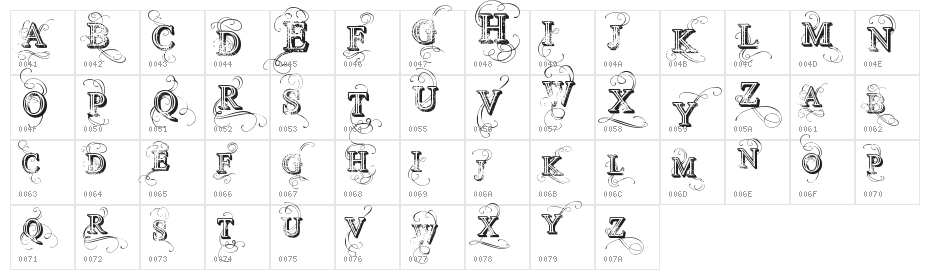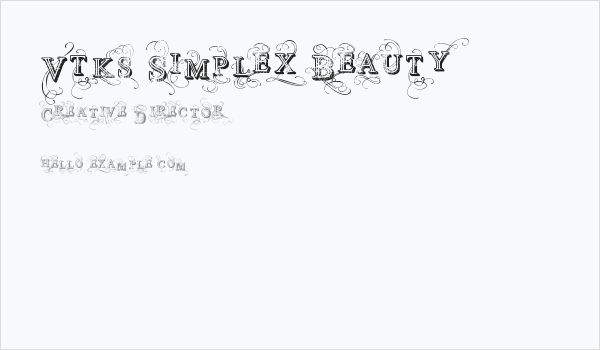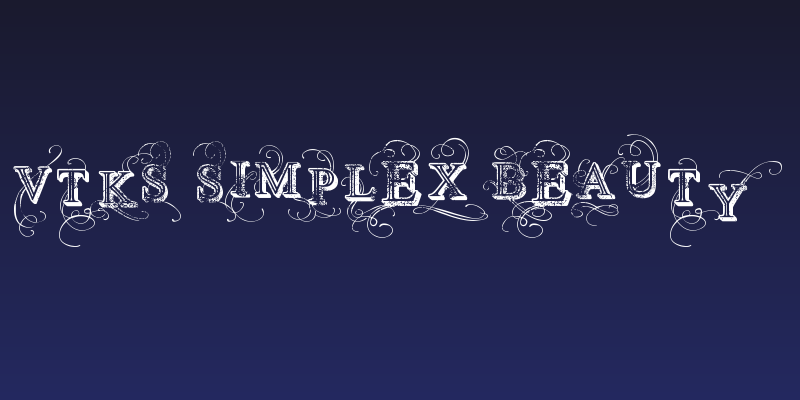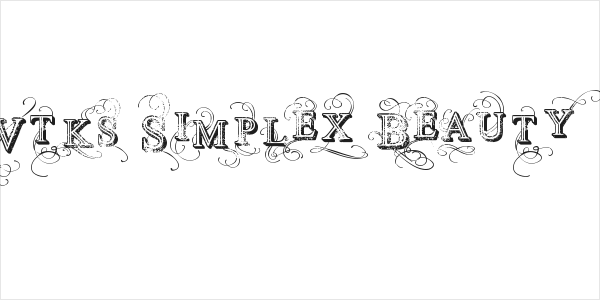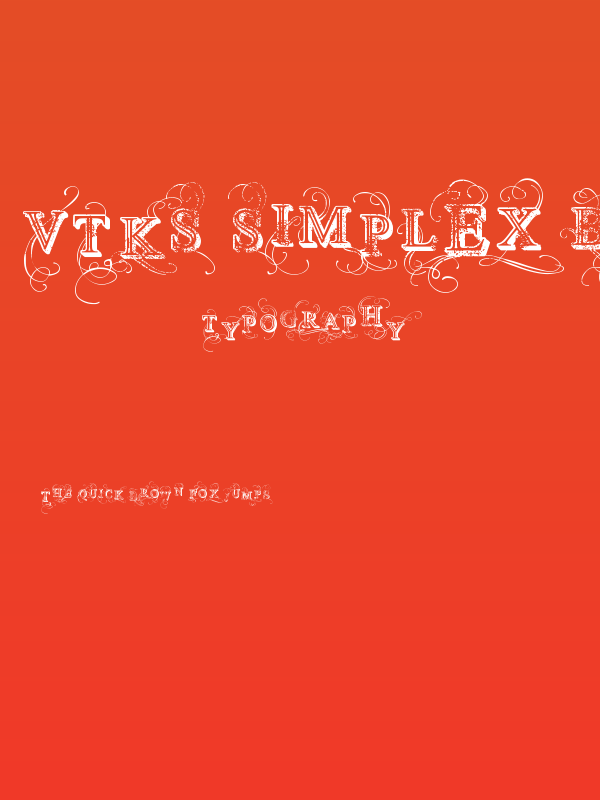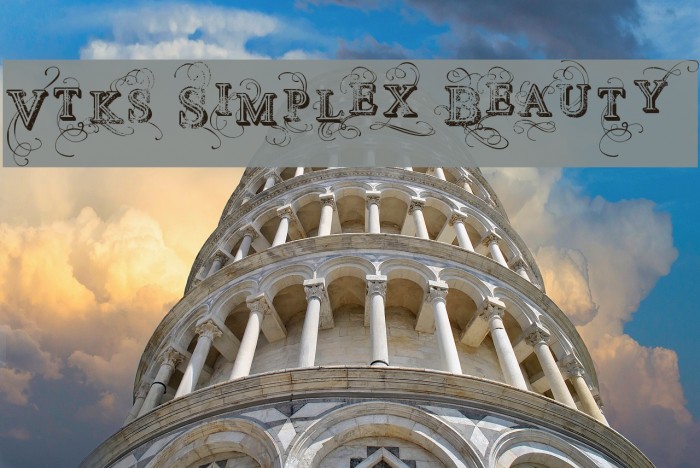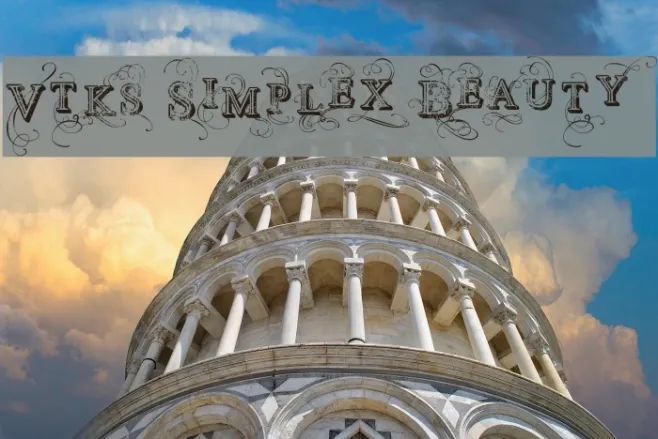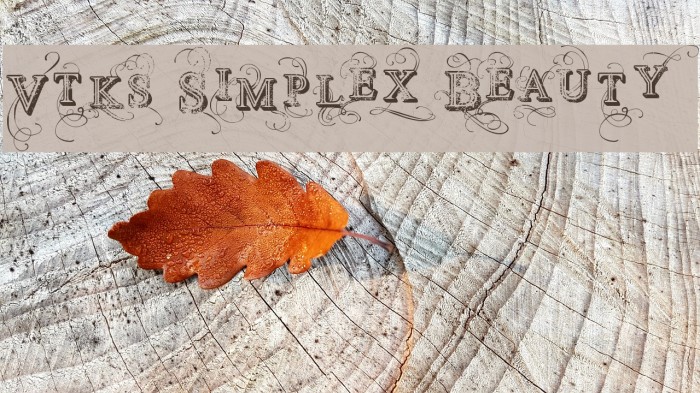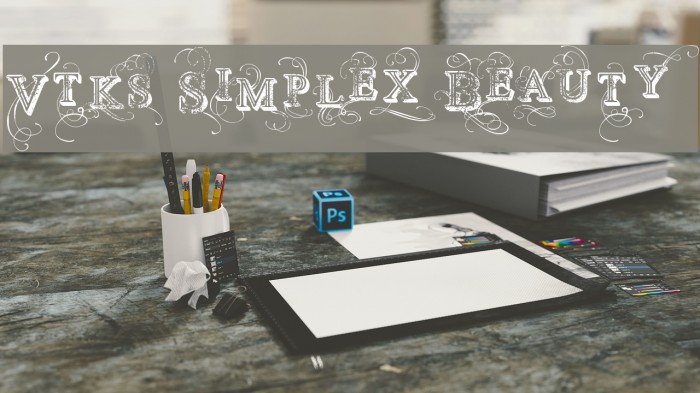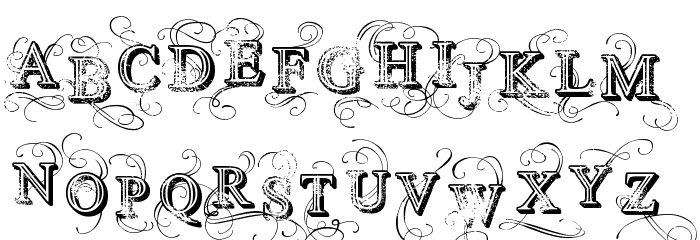
Vtks Simplex Beauty 2 Font
Vtks Simplex Beauty 2 Description
This font features an ornate and decorative style, characterized by elaborate flourishes and embellishments surrounding each letter. The uppercase letters are bold and prominent, with a distressed texture that adds a vintage feel. The intricate swirls and curls give it a whimsical and artistic appearance, making it stand out as a display font. The overall design is reminiscent of Victorian or Baroque aesthetics, with a touch of modern grunge due to the textured effect. This font is ideal for projects that require a dramatic and eye-catching typeface, such as posters, invitations, or branding materials that aim to convey elegance and creativity.
| Overall Style | Vintage, Decorative |
| Proposed Projects | Ideal for wedding invitations, vintage-themed posters, artistic branding, and decorative signage. |